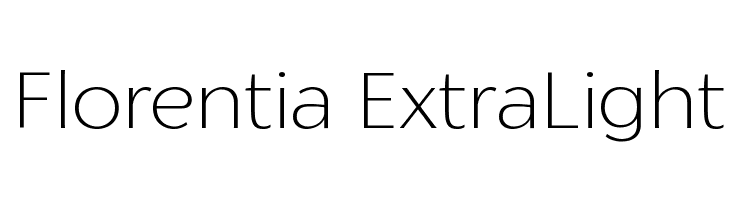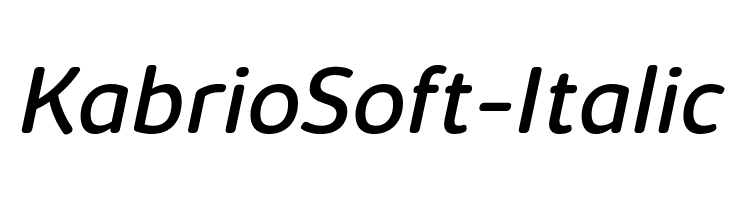
A modern, italic font with smooth curves and clean lines.
A clean, modern sans-serif font with a light weight and excellent readability.
A modern, italicized font with smooth curves and consistent strokes, offering a dynamic and professional look.
A modern, italic font with clean lines and balanced proportions.
A sleek, modern extra light italic font with a clean and elegant design.
A bold, rounded font with a modern and friendly style.
A bold, rounded font with a playful and robust style.
A bold and robust typeface with smooth, rounded characters.
A clean, modern sans-serif font with uniform strokes and balanced spacing.
A bold, heavy italic font with a dynamic and modern style.